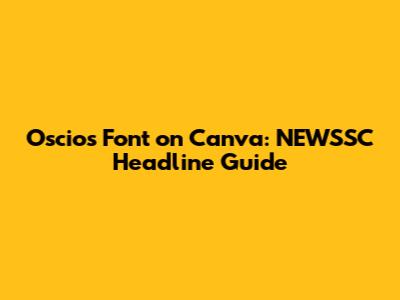
- Professional Look: Instantly elevate your designs with a touch of sophistication.
- Readability: Ensure your message is crystal clear, no matter the size.
- Versatility: Works for everything from social media graphics to presentations.
- Contrast is Key: Pair it with a simpler body font for maximum impact. Think Open Sans or Lato.
- Size Matters: Don't be afraid to go big with your headlines, but keep it proportional to the rest of your design.
- Color Coordination: Choose colors that complement the font's clean lines. Whites, blacks, and bold accent colors work wonders.
Hey guys! Ever stumbled upon a font that just clicks? Something that screams professionalism and modernity all at once? Well, let's dive into the world of the Oscios font, especially its NEWSSC Headline variant, and how you can wield its power right inside Canva. Trust me; this is a game-changer for your designs!
What is Oscios NEWSSC Headline Font?
Oscios is more than just a font; it's a statement. It falls into the sans-serif category, giving it a clean, minimalist vibe perfect for headlines, body text, and everything in between. Now, the NEWSSC Headline variant? That's where the magic happens. Designed explicitly for headlines, it boasts enhanced weight and spacing, ensuring your titles grab attention without sacrificing readability.
But what makes Oscios NEWSSC Headline genuinely stand out? It’s the perfect blend of modern aesthetics and functional design. The letters are crafted with precision, offering a harmonious balance between sharp edges and smooth curves. This meticulous design ensures that your headlines not only look fantastic but are also incredibly easy to read, even at a glance. In the fast-paced digital world, where attention spans are shorter than ever, having a font that can quickly convey your message is invaluable. Oscios NEWSSC Headline excels in this aspect, making it an ideal choice for news portals, blogs, and marketing materials where making a strong first impression is crucial.
Furthermore, the versatility of Oscios NEWSSC Headline extends beyond its visual appeal. It’s designed to work seamlessly across various platforms and devices, ensuring a consistent and professional look whether your audience is viewing your content on a desktop computer, a tablet, or a smartphone. This adaptability is particularly important in today’s multi-device environment, where users access information from a wide range of devices. By using Oscios NEWSSC Headline, you can be confident that your message will be delivered clearly and effectively, regardless of the device being used.
Another key advantage of Oscios NEWSSC Headline is its ability to pair well with other fonts. While it shines as a headline font, it also complements a wide range of body text fonts, allowing you to create a cohesive and visually appealing design. Whether you prefer a classic serif font for your body text or a more modern sans-serif, Oscios NEWSSC Headline can be easily integrated to create a harmonious and balanced typographic composition. This flexibility makes it a valuable asset for designers who want to maintain a consistent brand identity across all their materials.
In addition to its aesthetic and functional benefits, Oscios NEWSSC Headline also offers practical advantages in terms of design workflow. Its clear and legible design reduces the need for excessive tweaking and adjustments, saving you time and effort in the design process. This efficiency can be particularly beneficial when working on tight deadlines or managing multiple projects simultaneously. By streamlining the design process, Oscios NEWSSC Headline allows you to focus on the creative aspects of your work, resulting in higher-quality designs and greater overall productivity.
Why Use Oscios NEWSSC Headline in Canva?
Canva is a powerhouse, right? User-friendly, versatile, and packed with features. But let's be real; the default font selection can sometimes feel a bit… meh. That's where Oscios NEWSSC Headline comes in to save the day!
Canva's extensive library of design tools and templates makes it an ideal platform for both novice and experienced designers. However, the key to creating truly outstanding designs lies in the details, and typography is one of the most critical elements to consider. While Canva offers a wide range of fonts, incorporating Oscios NEWSSC Headline can significantly enhance the overall impact and professionalism of your work. This font brings a level of sophistication and clarity that can set your designs apart from the crowd.
One of the primary reasons to use Oscios NEWSSC Headline in Canva is its ability to create a strong visual hierarchy. In design, visual hierarchy refers to the arrangement of elements in a way that guides the viewer's eye and highlights the most important information. A well-designed headline is crucial for establishing this hierarchy, and Oscios NEWSSC Headline excels in this regard. Its bold and clear letterforms command attention, drawing the viewer's eye to the headline and setting the stage for the rest of the content. By using this font for your headlines, you can ensure that your key messages are immediately noticed and understood.